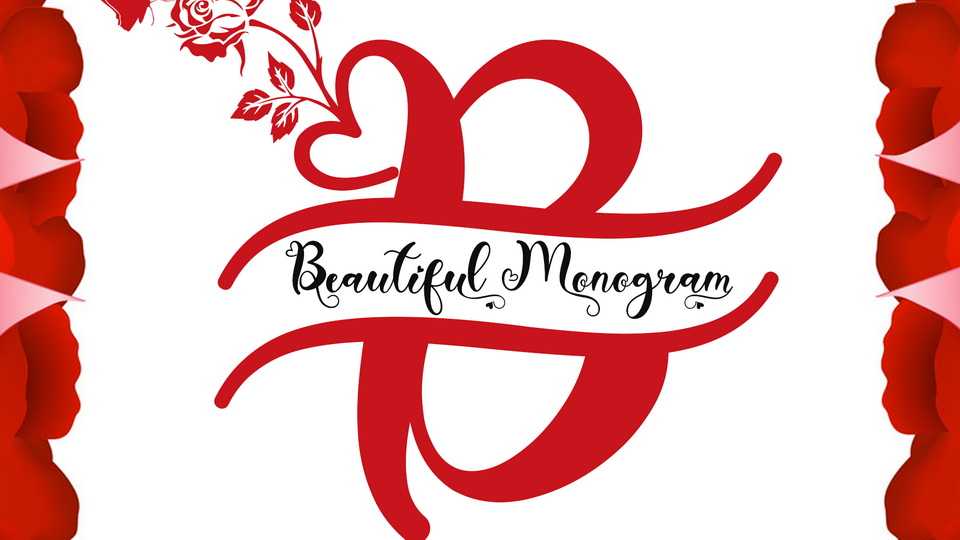
Download Beautiful Monogram font, a very beautiful and unique monogram script with heart, flower and butterfly decoration. The monogram embellishments are very easy to use and there are also guides in the preview.